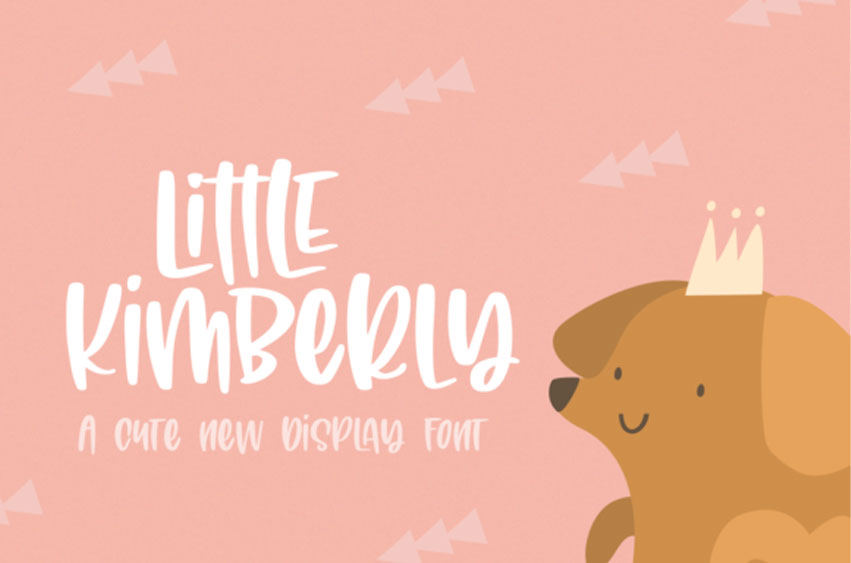
Little Kimberly Font
Little Kimberly Font is a casual display font that was carefully crafted to meet every design’s needs.
Friendly and playful, this font will make each of your projects come alive.